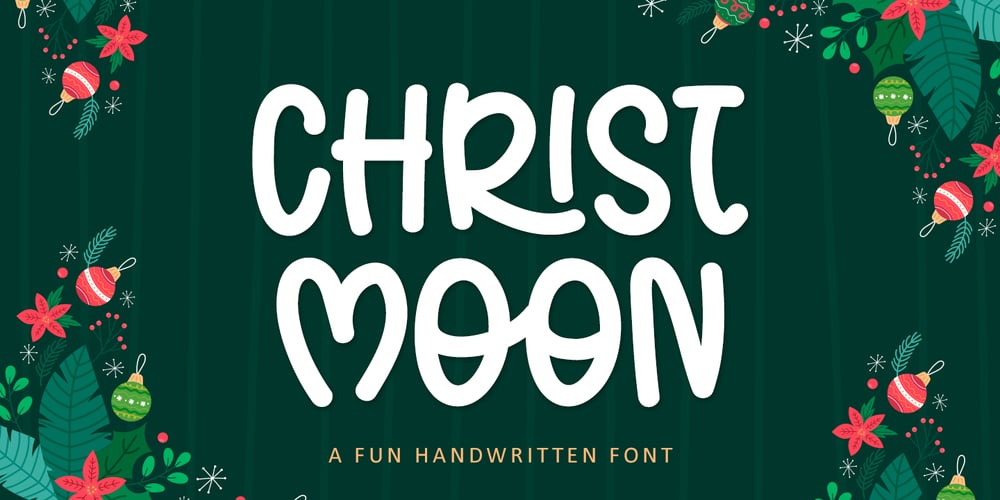
Christ Moon Font Family was designed by Bayu Suwirya and published by Illushvara. Christ Moon contains 1 styles and family package options. Introducing a new font Christ Moon is a cute, quirky and chunky lettered handwritten font. Fall in love with its incredibly versatile style and use it to create spectacular designs special for Christmas Season! Like a logotype, social media promotion, merchandise, packaging, cut and print sticker, quotes and more.